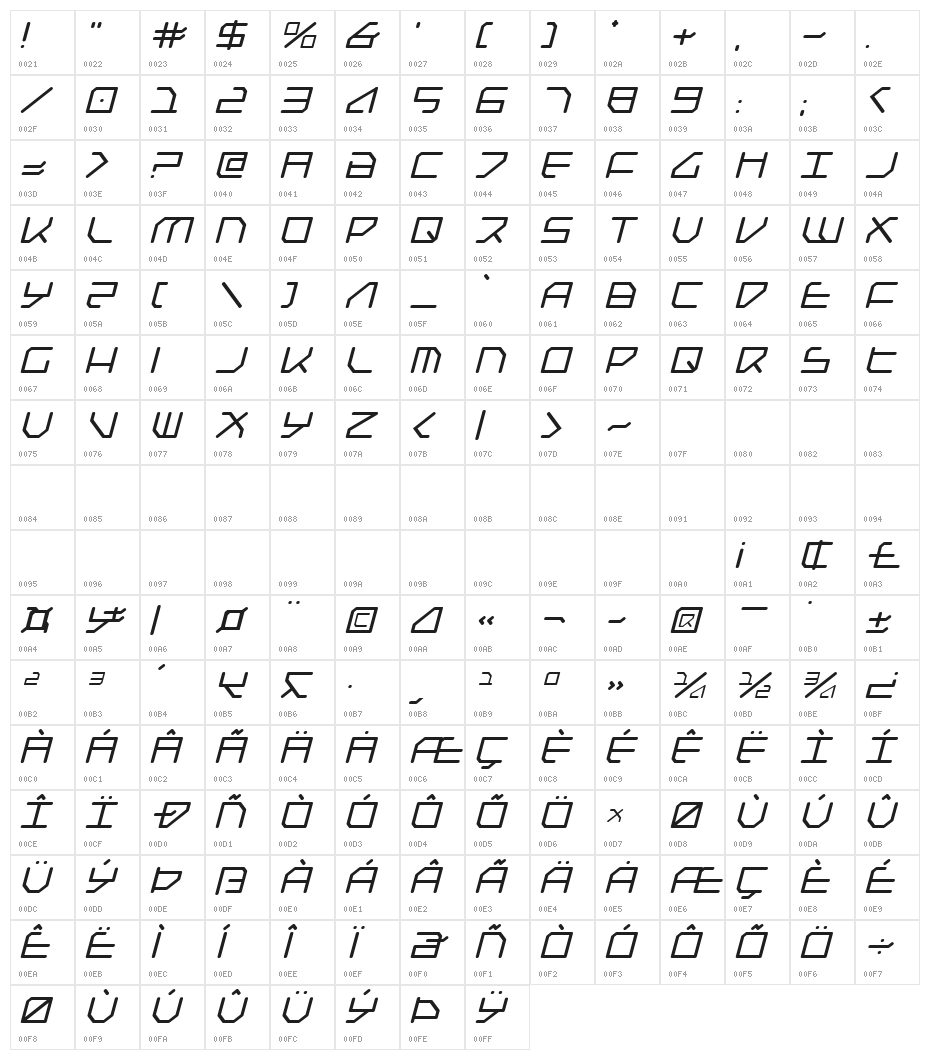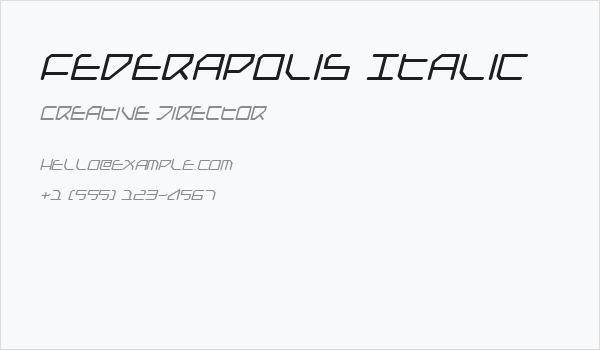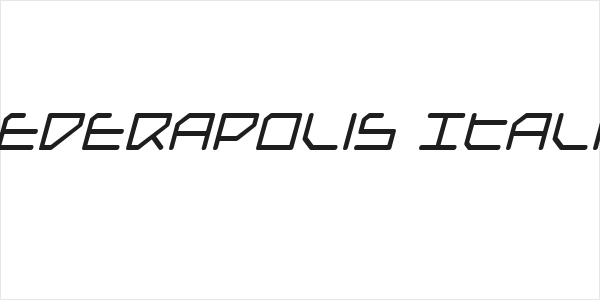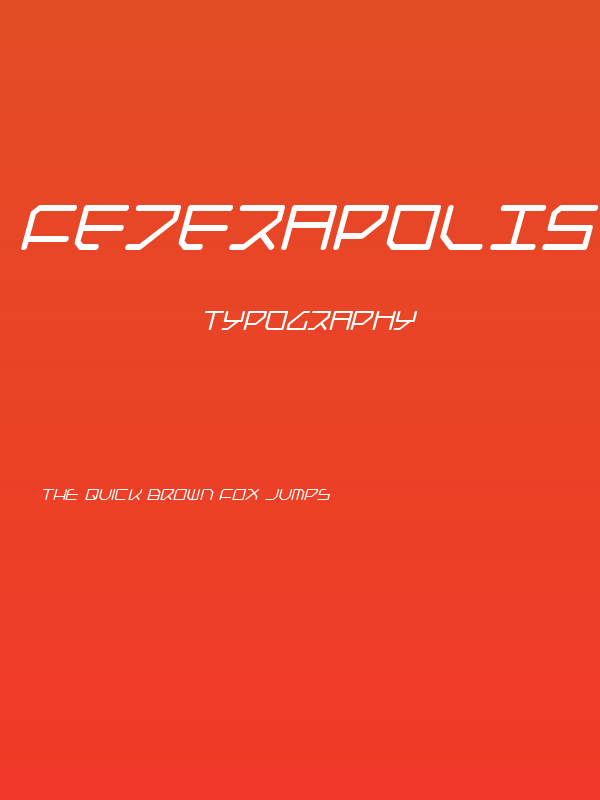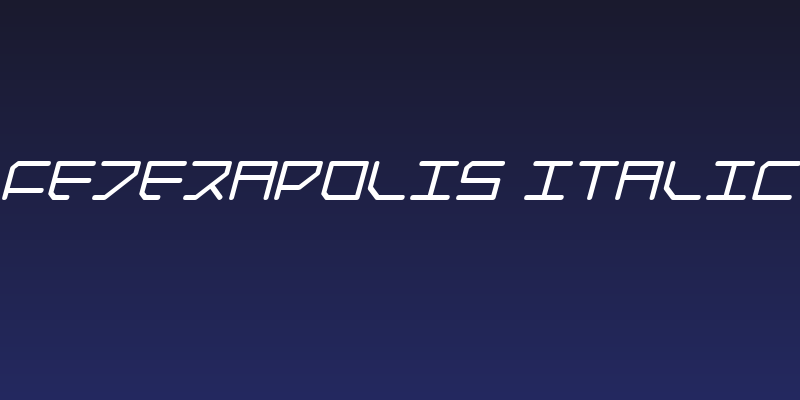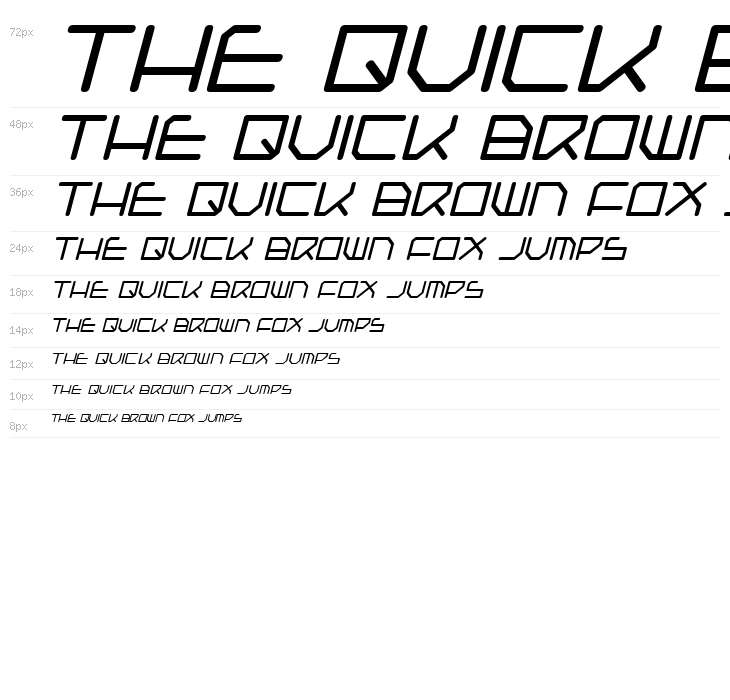
Federapolis Italic Font
Federapolis Italic Description
This font features a futuristic and geometric design with a distinct italic slant. The characters are formed with clean, angular lines and sharp edges, giving it a modern and tech-inspired appearance. The uppercase and lowercase letters maintain a consistent style, with a uniform stroke width that adds to its sleek look. The numerals and special characters follow the same design principles, ensuring a cohesive appearance across all glyphs. The font's unique style makes it suitable for projects that require a contemporary and innovative touch.
| Proposed Projects | Ideal for tech branding, sci-fi posters, video game titles, and modern web design. |